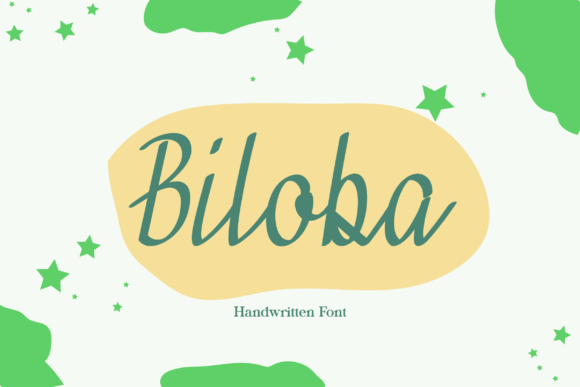
Immerse yourself in the delightful world of Biloba Script, a captivating handwritten typeface that adds a touch of elegance and personality to your creative endeavors. With its graceful lines and natural flow, Biloba possesses an organic charm that mirrors the beauty of authentic handwriting.
Step into a realm of creativity where Biloba's organic strokes dance across your digital canvas, transforming words into works of art. This enchanting font is a perfect companion for heartfelt invitations, personalized greeting cards, and eye-catching social media posts. Its versatility shines through in the crafting of compelling posters and brochures, where headlines and text come alive with a touch of genuine charm.
Embark on a journey of self-expression with Biloba Script. Its uninhibited nature invites you to explore the depths of your imagination, creating designs that reflect your unique personality. Let your words flow effortlessly through the pages of your digital journal, adorned with the elegance of Biloba's handwritten style.
With Biloba Script as your creative ally, transform the mundane into the magnificent. Its innate beauty elevates everyday projects into extraordinary expressions of art. Elevate your branding materials, adding a touch of sophistication to business cards, letterheads, and website designs. Unleash your creativity and watch as your ideas bloom into visually stunning masterpieces.